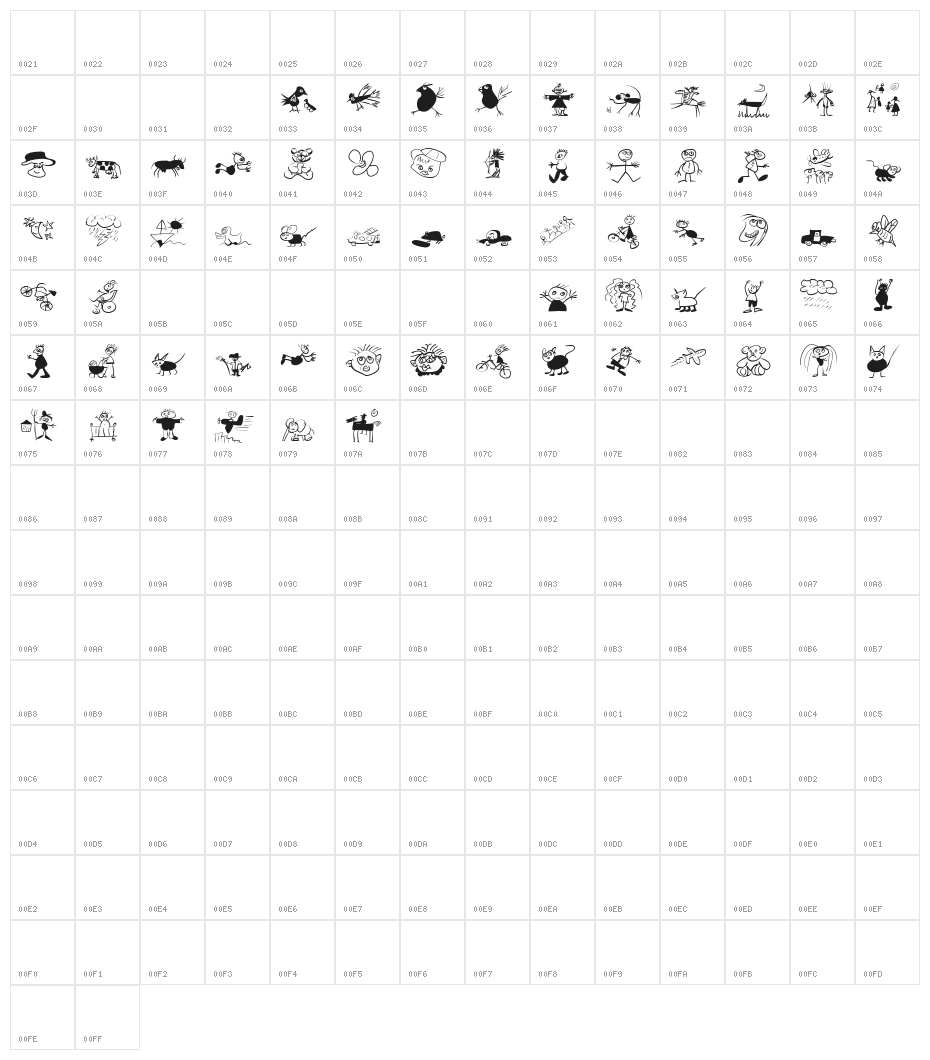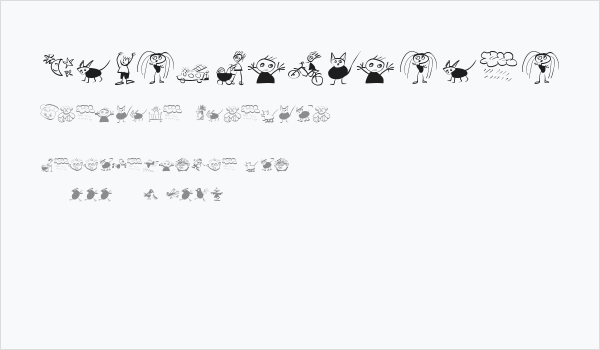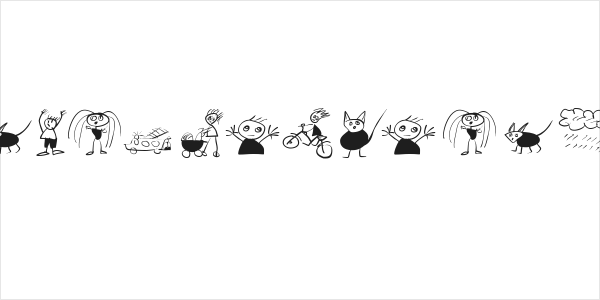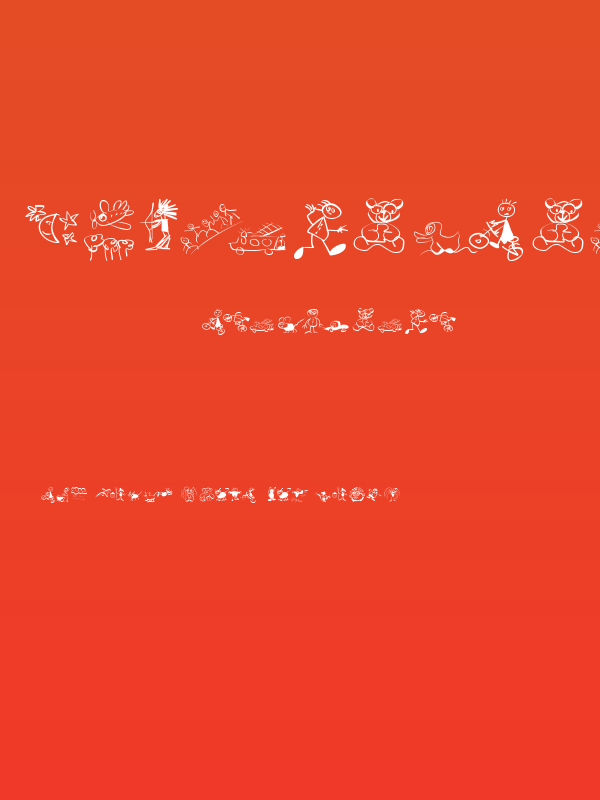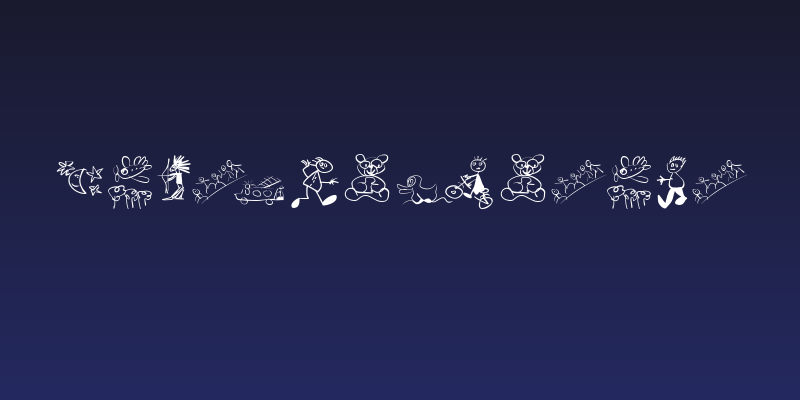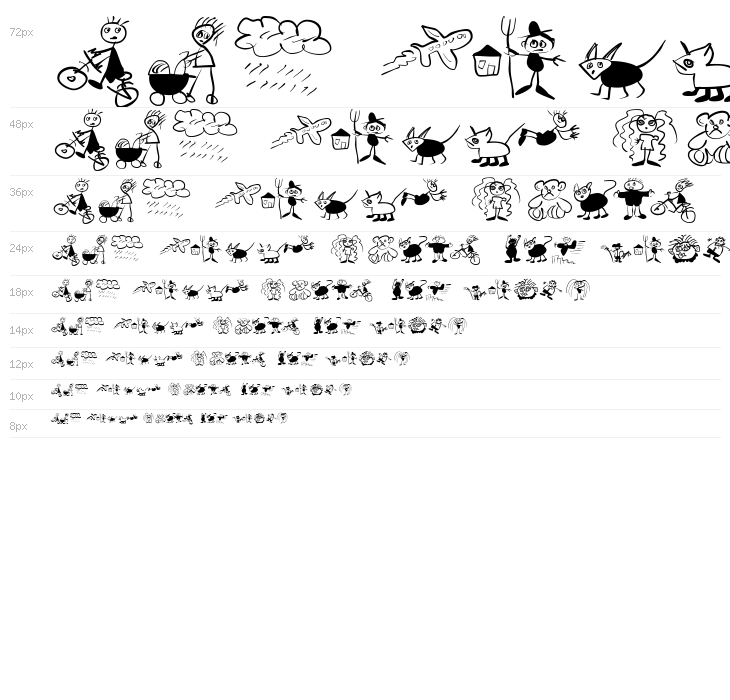
KidsPhantasies Font
KidsPhantasies Description
A playful, hand-drawn dingbat font featuring whimsical stick-figure children, animals, vehicles, and imaginative scenes. Each character is a unique illustration, evoking a childlike sense of creativity and fun.
| Overall Style | Playful, Childlike, Whimsical |
| Use Case | Illustrative accents, decorative elements, thematic graphics. |
| Proposed Projects | Children's books, educational materials, party invitations, playful branding, classroom decorations. |